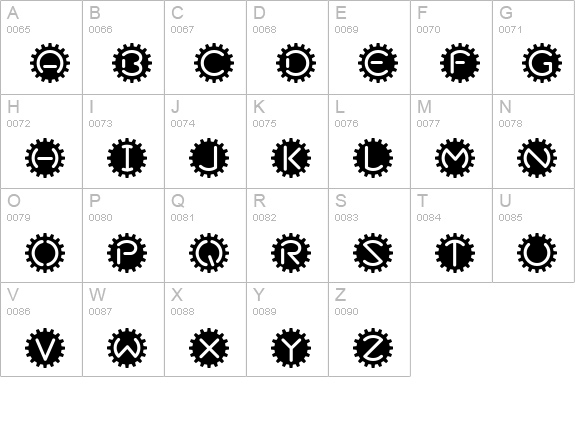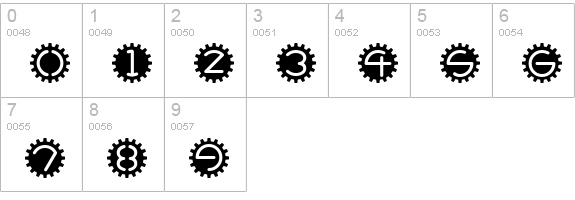
GearBox Font Details
GearBox font is a unique and modern typeface that combines sleek lines and sharp edges to create a bold and dynamic appearance. This versatile font is perfect for a wide range of design projects, from logos and branding to posters and websites. Its geometric shapes and industrial aesthetic make it stand out from the crowd, giving your designs a fresh and contemporary look. What's even better is that GearBox font is available for free download at FontsMarket.com. This means you can easily access this eye-catching font to enhance your projects without any cost. Don't miss out on the opportunity to add GearBox font to your design arsenal and make your creations truly impactful and memorable.